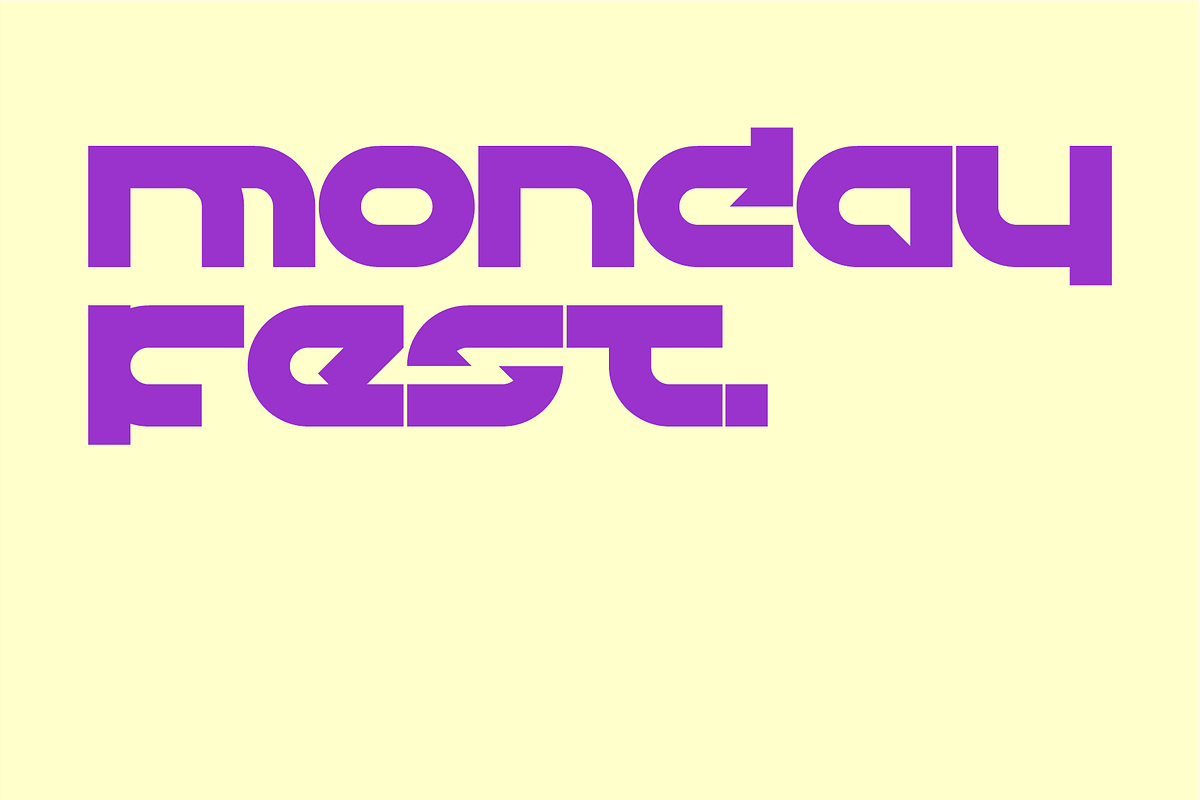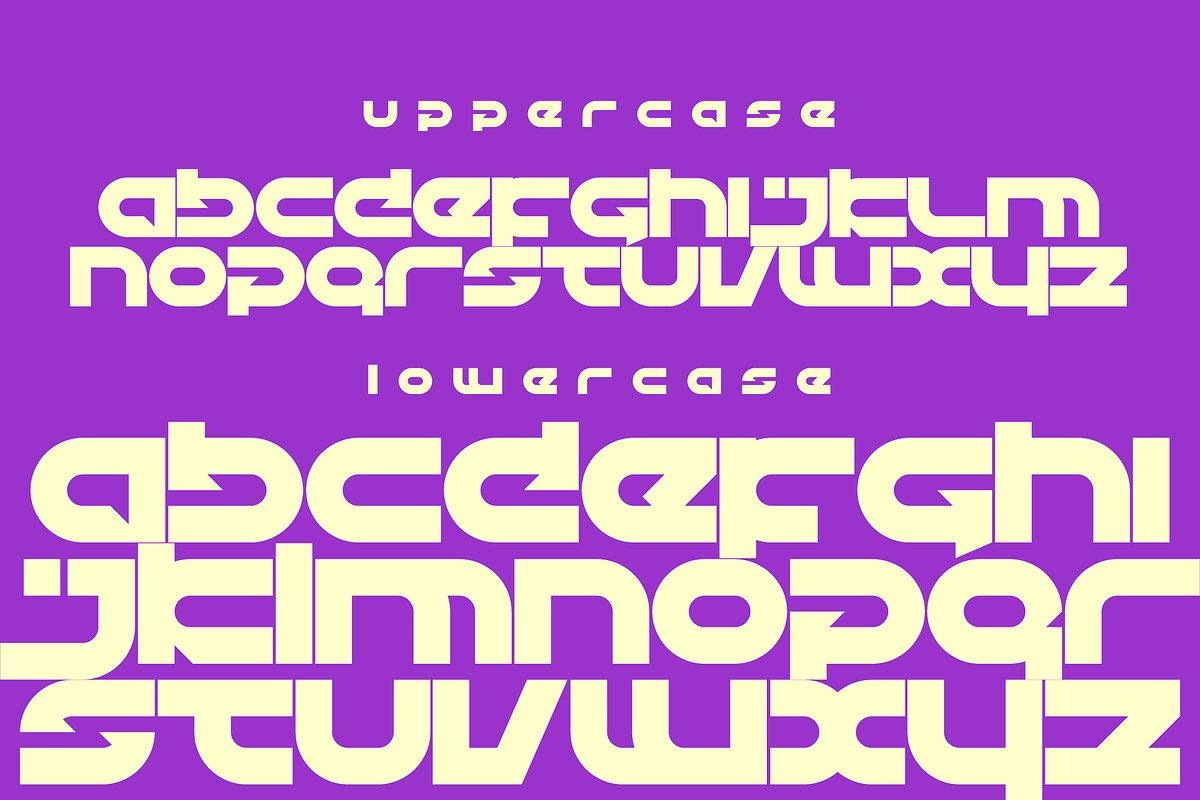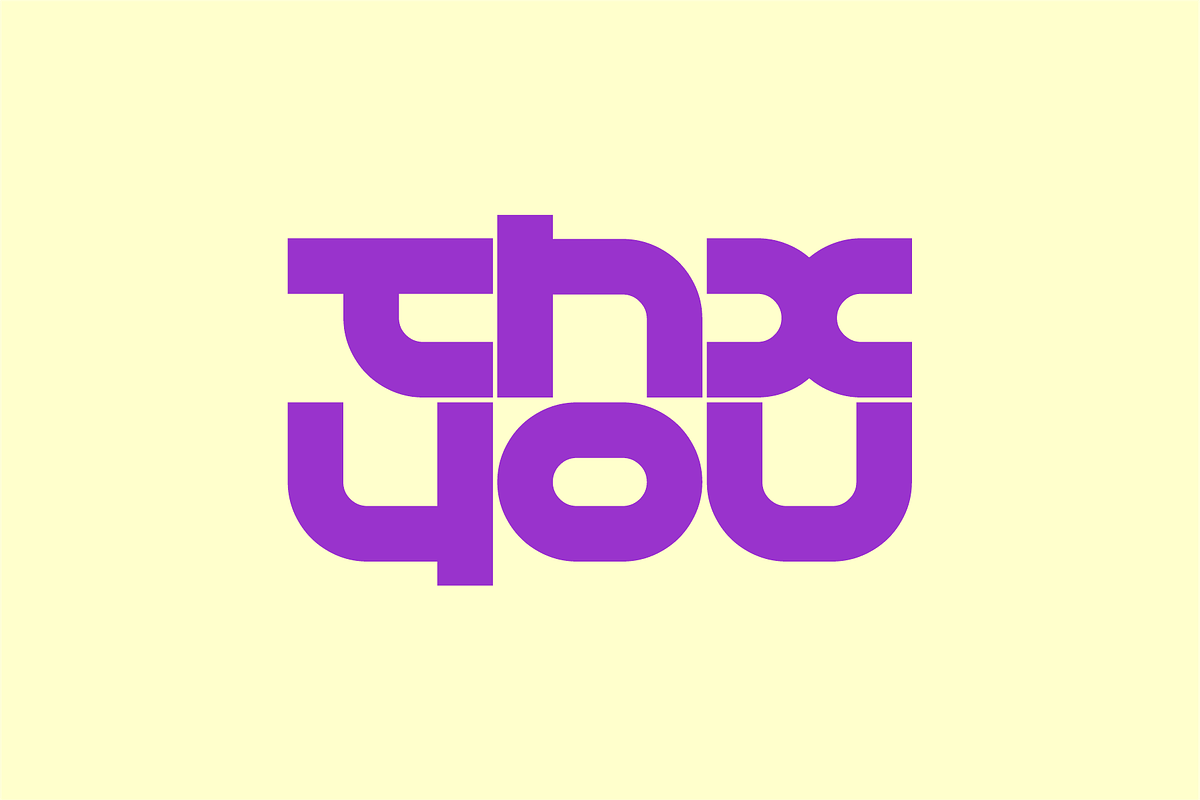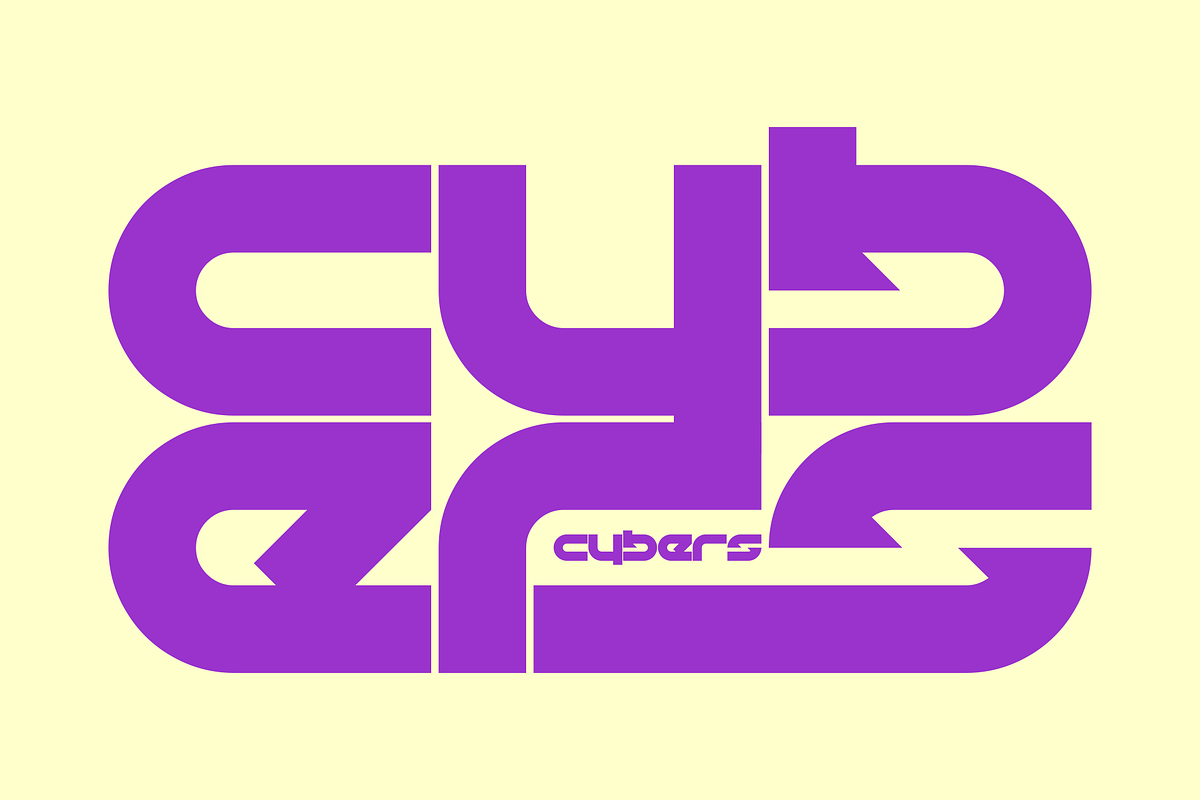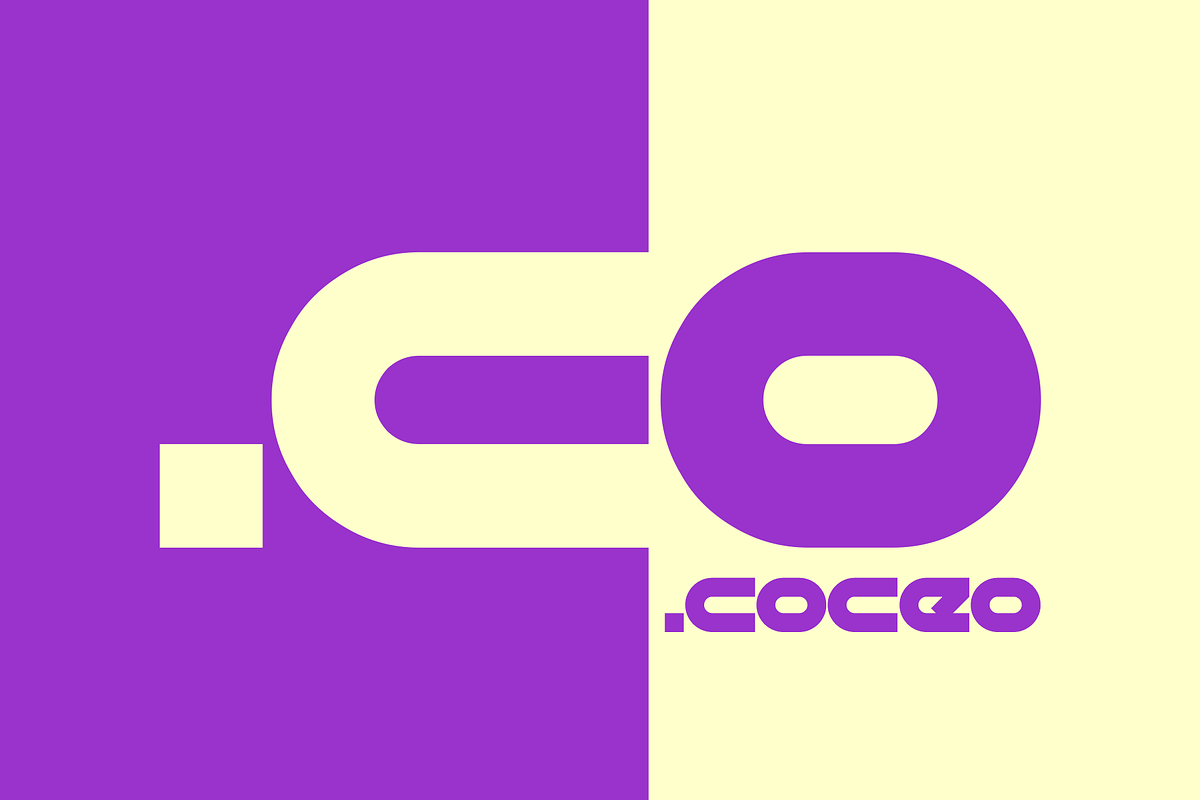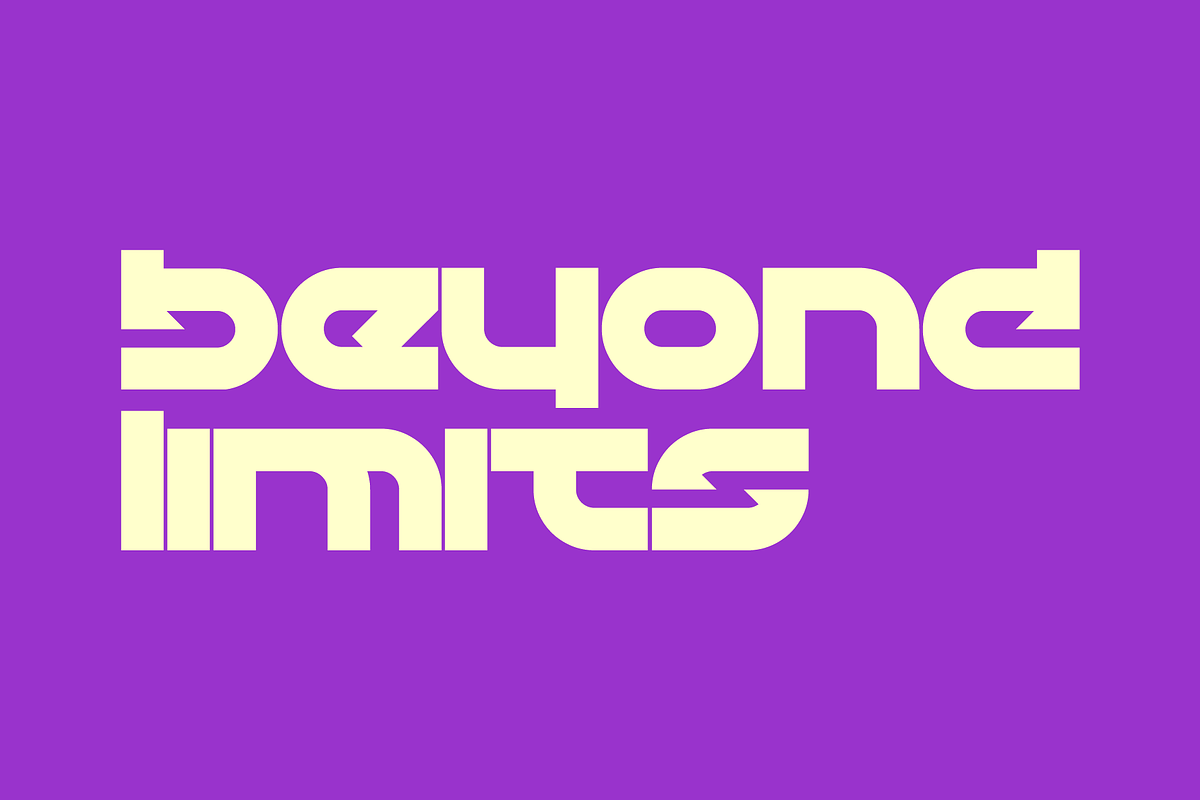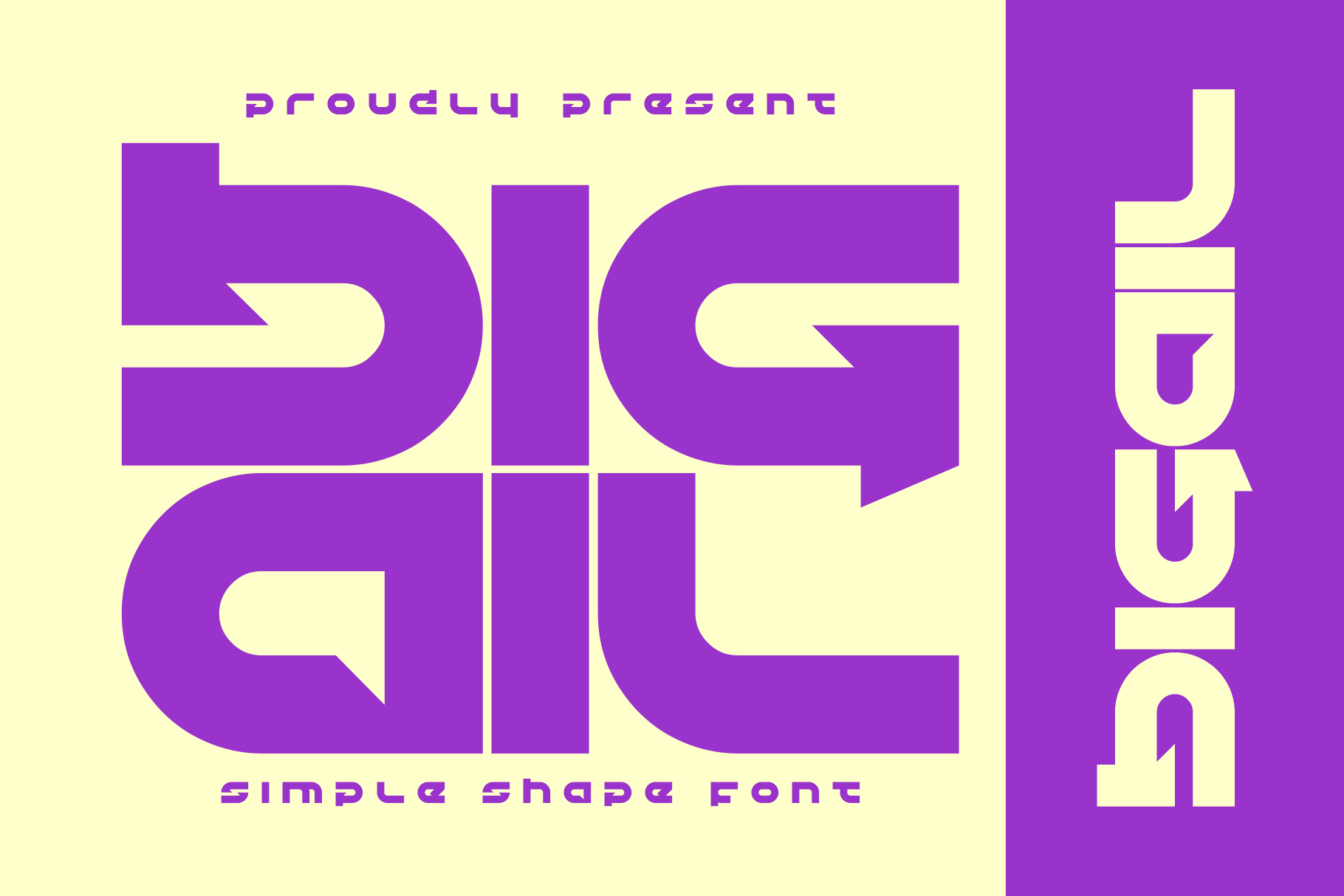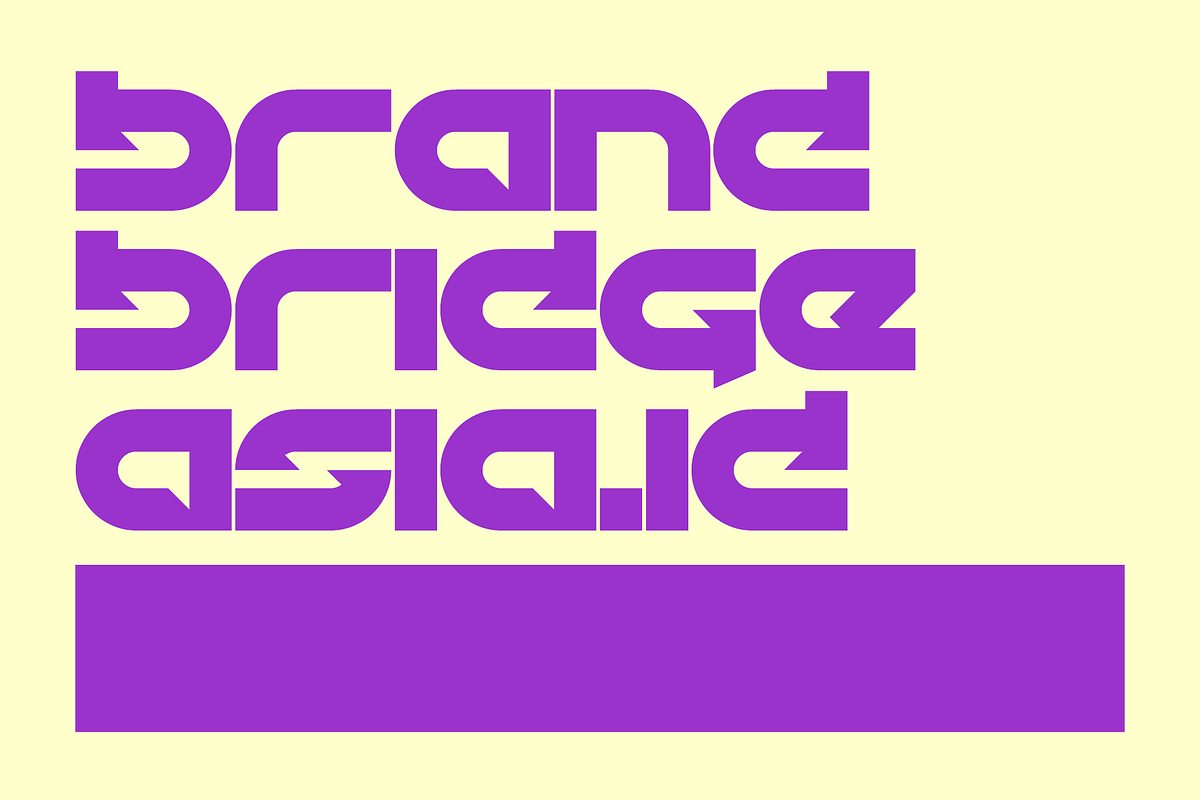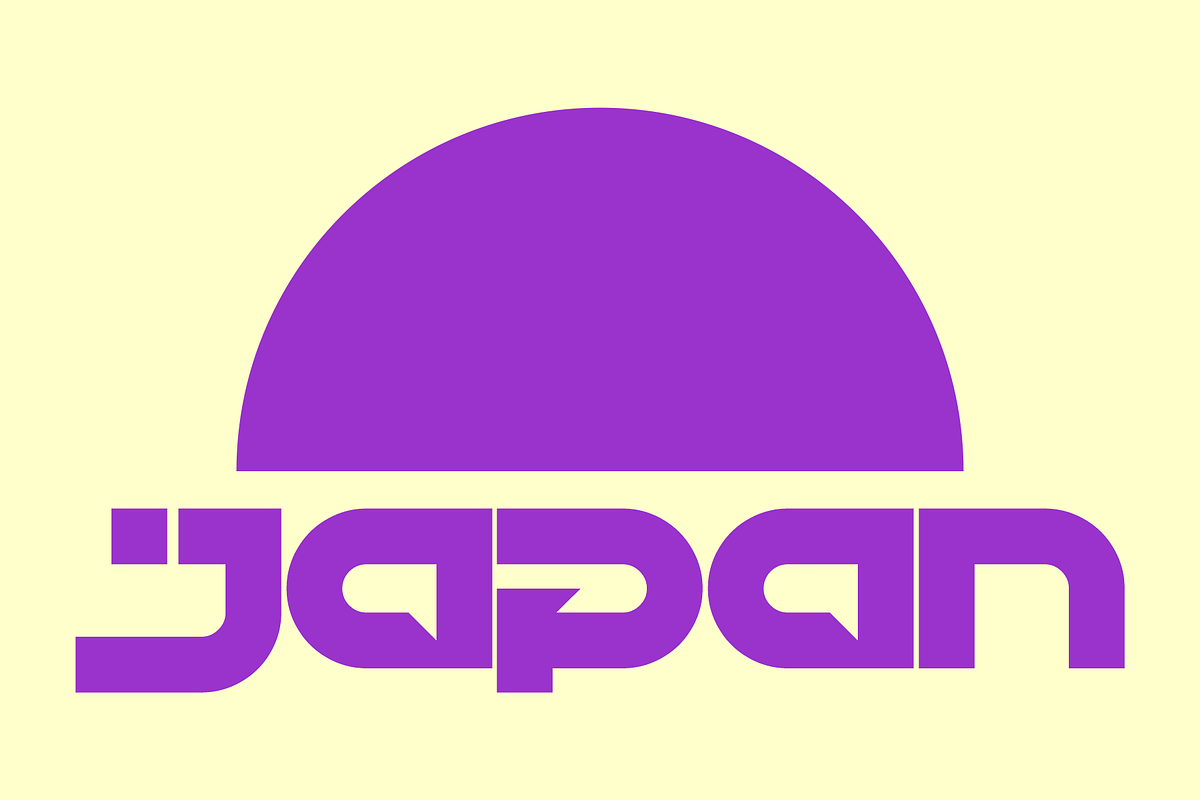
Bigail Font
BIGAIL is an elegant display typeface that radiates luxury, sophistication, and timeless beauty in a perfectly balanced modern-classic harmony. Designed with refined curves, balanced proportions, and dramatic thick-to-thin contrast, BIGAIL makes a powerful statement in every composition.
This typeface embodies a sense of exclusivity and grace while maintaining a bold artistic presence. Each letterform is crafted to stand out, making it an ideal choice for designs that demand attention and premium appeal.